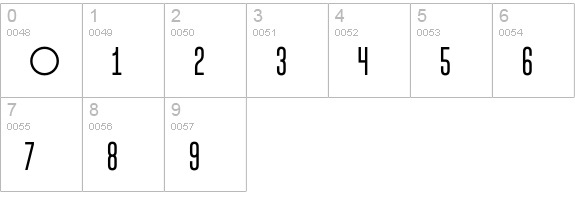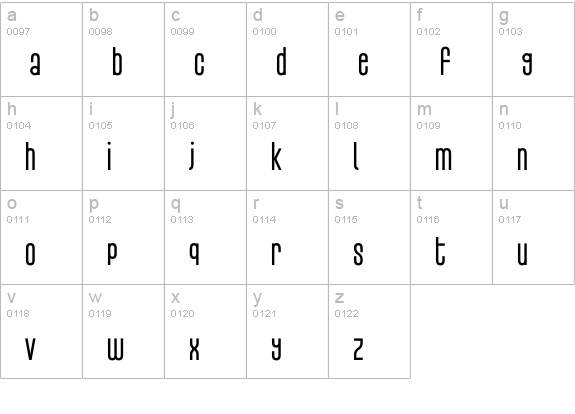
AdultometricProBold Font Details
Introducing AdultometricProBold font - a sleek and modern typeface designed to make a bold statement. With its strong and confident appearance, this font is perfect for headlines, posters, branding, and any project that requires a commanding presence. The sharp lines and distinct letterforms of AdultometricProBold exude professionalism and sophistication. Best of all, AdultometricProBold is available for free download at FontsMarket.com. This means you can easily enhance your designs with this premium font without any cost. Don't miss out on the opportunity to elevate your projects with the striking aesthetics of AdultometricProBold. Download it today and let your creativity shine!